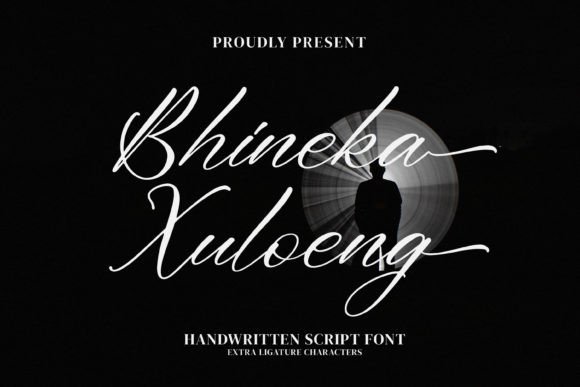
Prepare yourself for the spectacular Bhineka Xuloeng Font, an exquisite creation by integritypestudio that's ready to transform your designs. This modern script font exudes sophistication and elegance, perfectly capturing the essence of refined taste.
With Bhineka Xuloeng, your projects will radiate an aura of luxury and charm. Imagine crafting a captivating logo that draws attention like a magnet, leaving a lasting impression on your audience. This font is a masterpiece for exceptional branding, effortlessly elevating your designs to new heights.
Unleash your creativity with Bhineka Xuloeng and explore endless possibilities. Design homeware items that ooze elegance, or create product packaging that demands attention on the shelves. This script font is a true chameleon, adapting seamlessly to mugs, posters, and t-shirts.
Make your words dance with Bhineka Xuloeng. Whether it's a heartfelt quote or a powerful message, this font will add a touch of grace and allure to your typography. It's the perfect choice for book covers, name cards, and invitation cards, ensuring your words leave a lasting impact.
Step into the world of sophistication with Bhineka Xuloeng. Embrace the beauty of this font for your photography, adding a touch of timeless charm to your images. It's also ideal for watermarks, discreetly showcasing your brand's presence.
Don't miss this opportunity to elevate your designs with Bhineka Xuloeng. This script font is your gateway to creating stunning visuals that speak volumes. Its versatility and elegance will leave you breathless, making it the perfect choice for designers seeking a touch of brilliance.